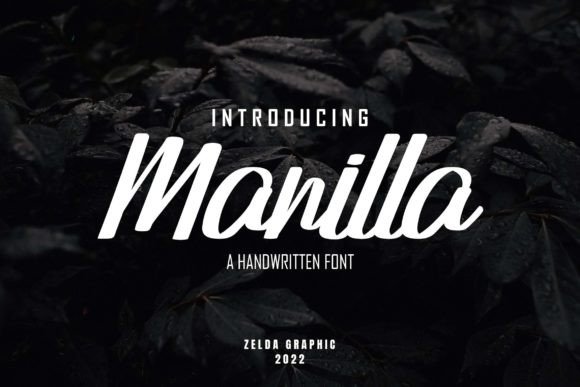
**Introducing Manilla Font: The Epitome of Elegance and Creativity for Your Digital Expressions**
Step into the captivating world of Manilla, a breathtaking handwritten script font that will ignite your imagination and elevate your digital creations to new heights. Designed by the renowned Saber Studio, Manilla is a masterpiece of meticulous craftsmanship, combining the allure of handwritten elegance with the precision of digital artistry.
Indulge in the versatility of Manilla, a font that effortlessly transcends the boundaries of creative expression. Whether you're a seasoned designer crafting captivating digital masterpieces, a budding artist seeking to infuse your creations with a touch of authenticity, or simply seeking a unique and stylish way to personalize your digital communications, Manilla stands as the perfect companion for your creative endeavors.
Picture the graceful curves of Manilla gracing your Gmail signature, adding a touch of sophistication and individuality to every email you send. Let its elegant strokes dance across your digital designs, creating breathtaking visuals that captivate and inspire. Envision Manilla's charm adorning your presentations, transforming ordinary slides into captivating narratives. Unleash your creativity with Manilla, and witness the birth of greeting cards that convey your heartfelt messages with an artistic flair.
With Manilla, the possibilities are as boundless as your imagination. Its versatility knows no limits, making it the ideal choice for a wide array of creative pursuits. Embrace the power of Manilla, and unlock a world of enchanting digital expressions that will leave an everlasting impression on your audience.
**Reasons Why You'll Adore Manilla**
- Its captivating handwritten style adds a touch of authenticity and personal flair to your digital creations.
- Its versatility shines through its seamless adaptability to a wide range of design projects, from digital art to presentations and personal branding.
- Manilla elevates your Gmail signature, transforming it into a work of art that reflects your unique style and personality.
- Its elegant strokes bring a touch of sophistication to your social media posts, capturing attention and sparking engagement.
- With Manilla, you'll create digital designs that stand out from the crowd, showcasing your creativity and artistic flair.